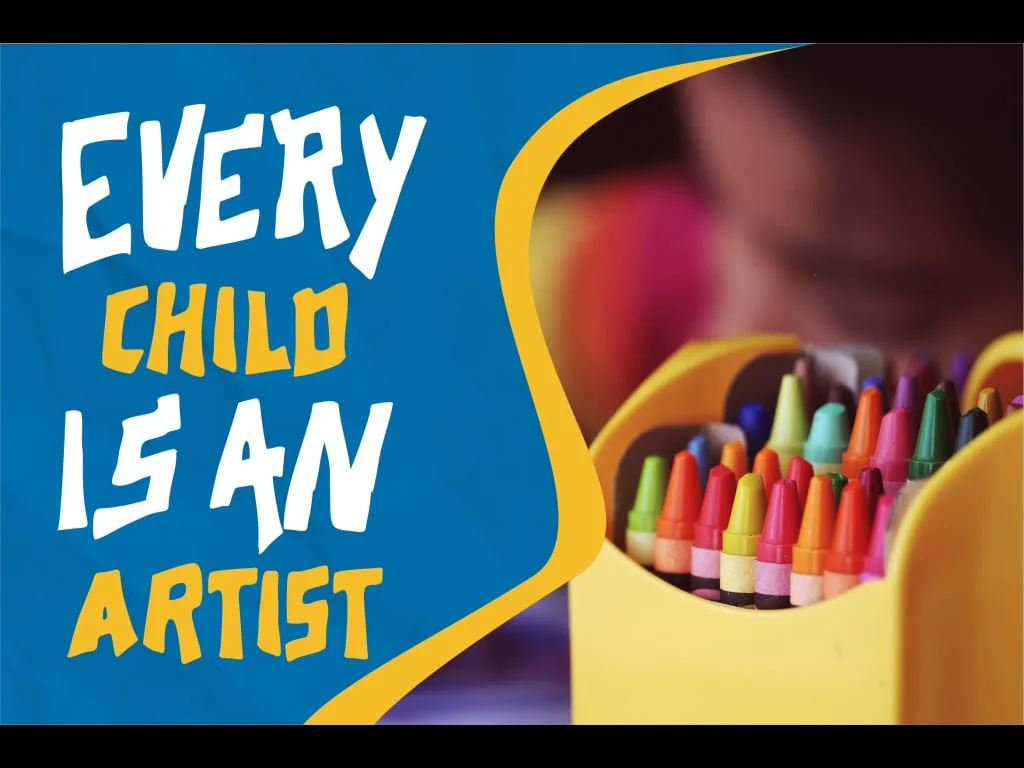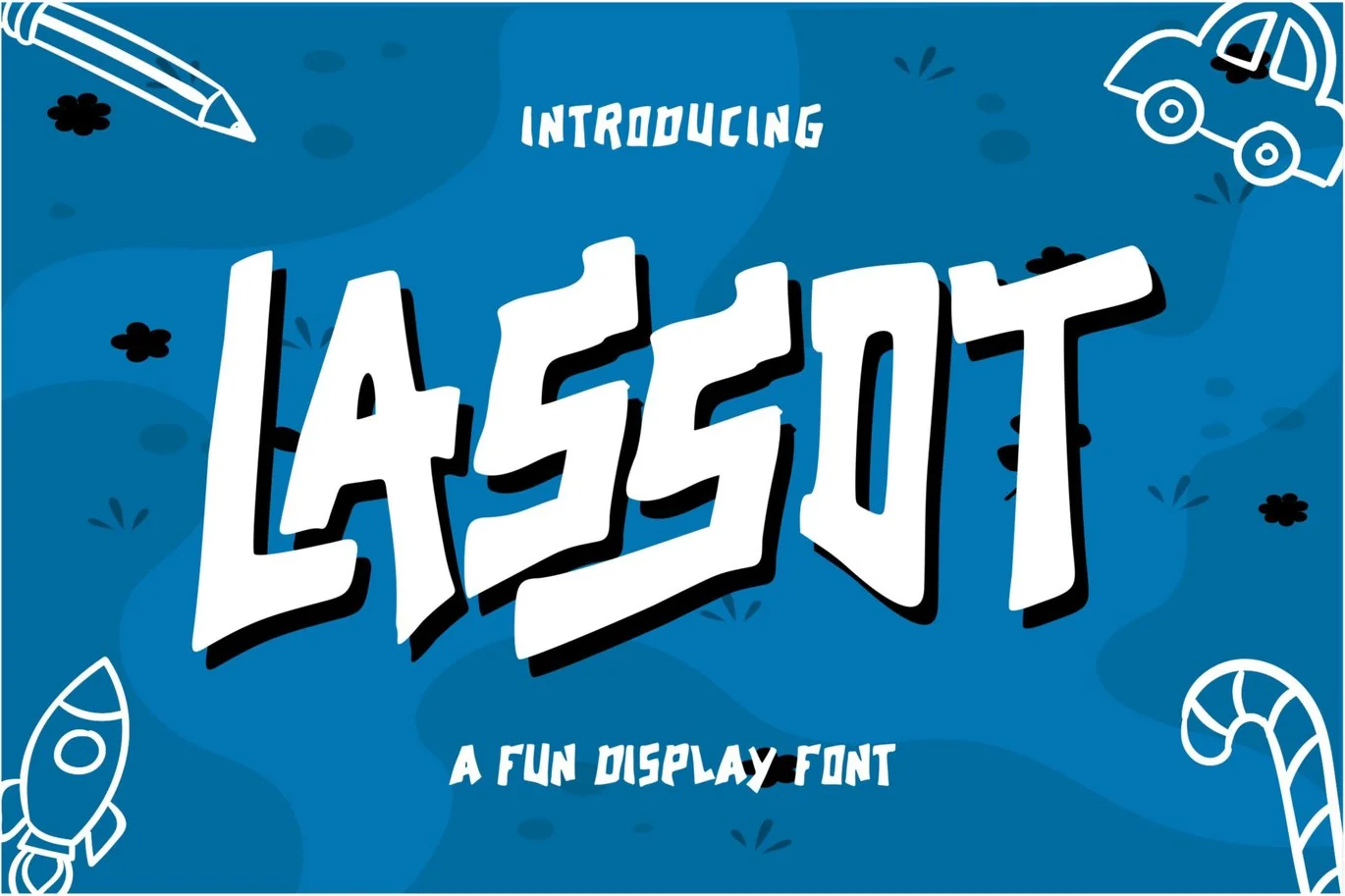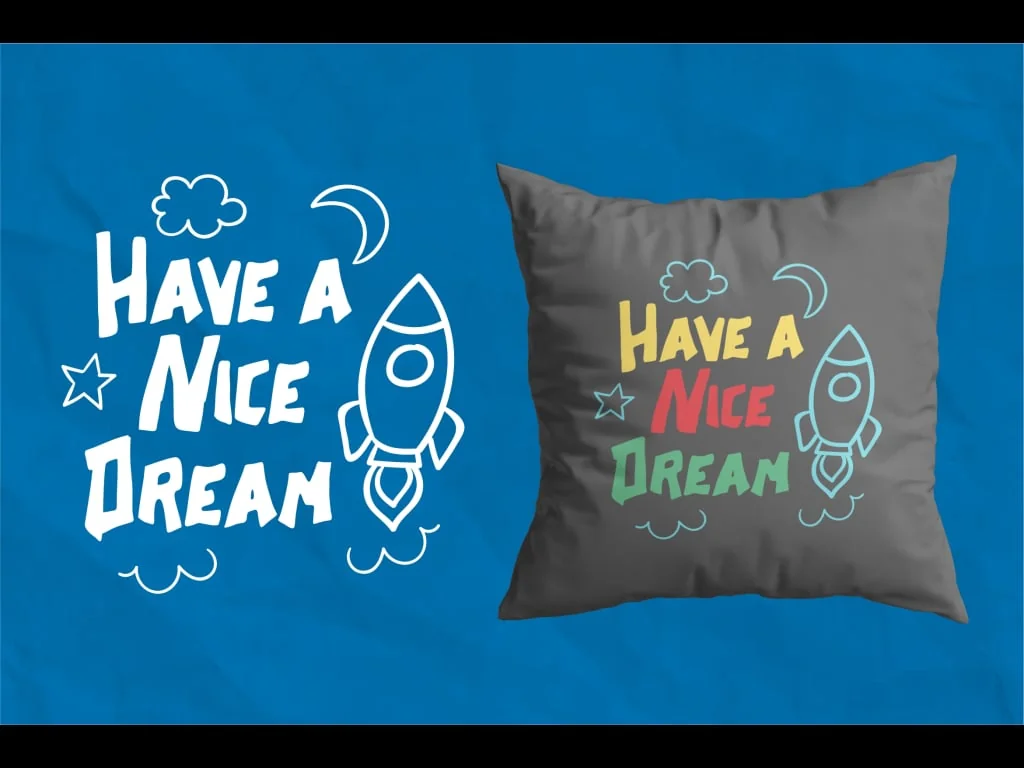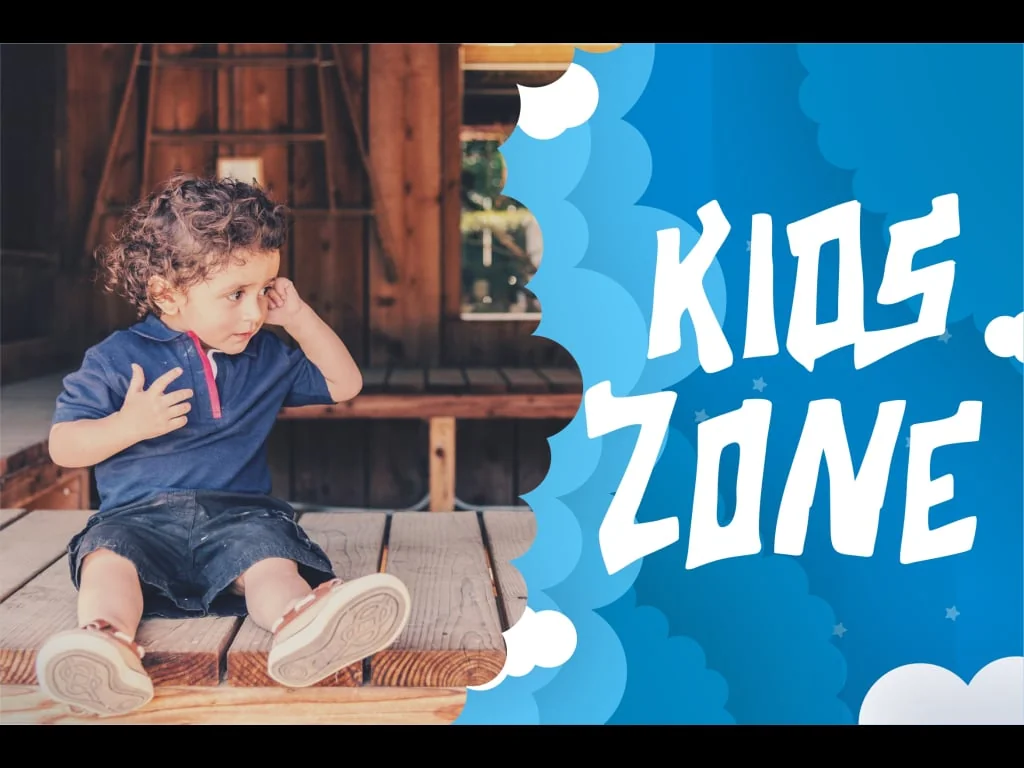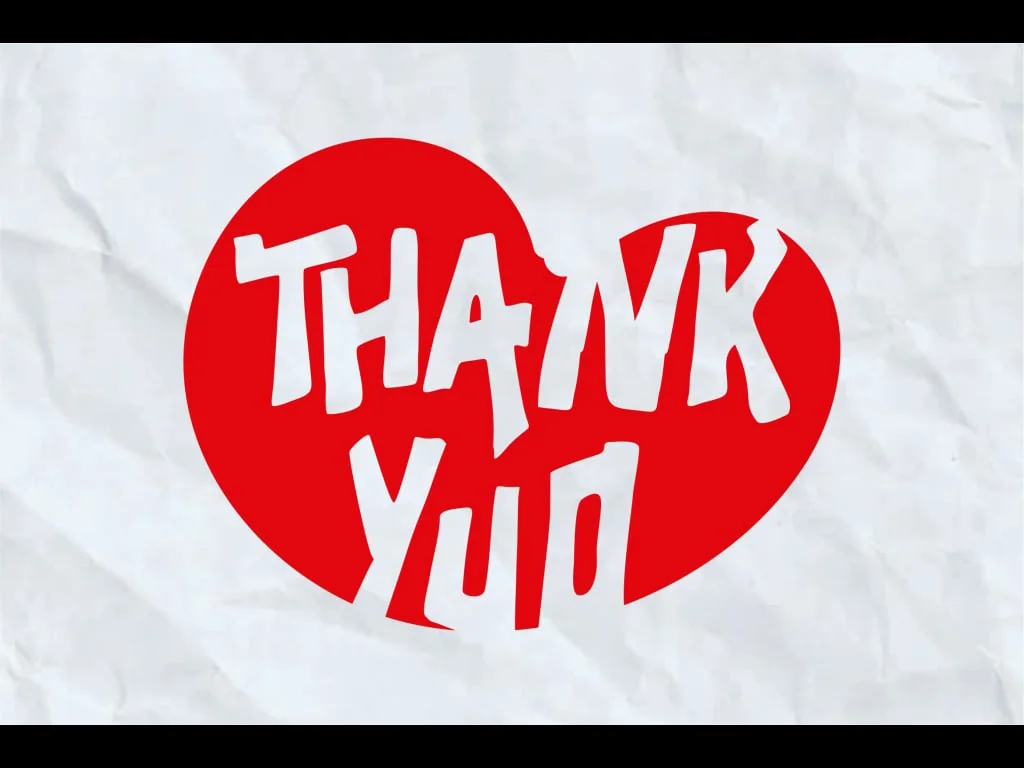
Lassot – Fun Display Font
Lassot is perfect to use for Logotype, Letterhead, Poster, Apparel Design, Label and etc.
The alternative characters were divided into several features such as Stylistic Alternates and Ligature.